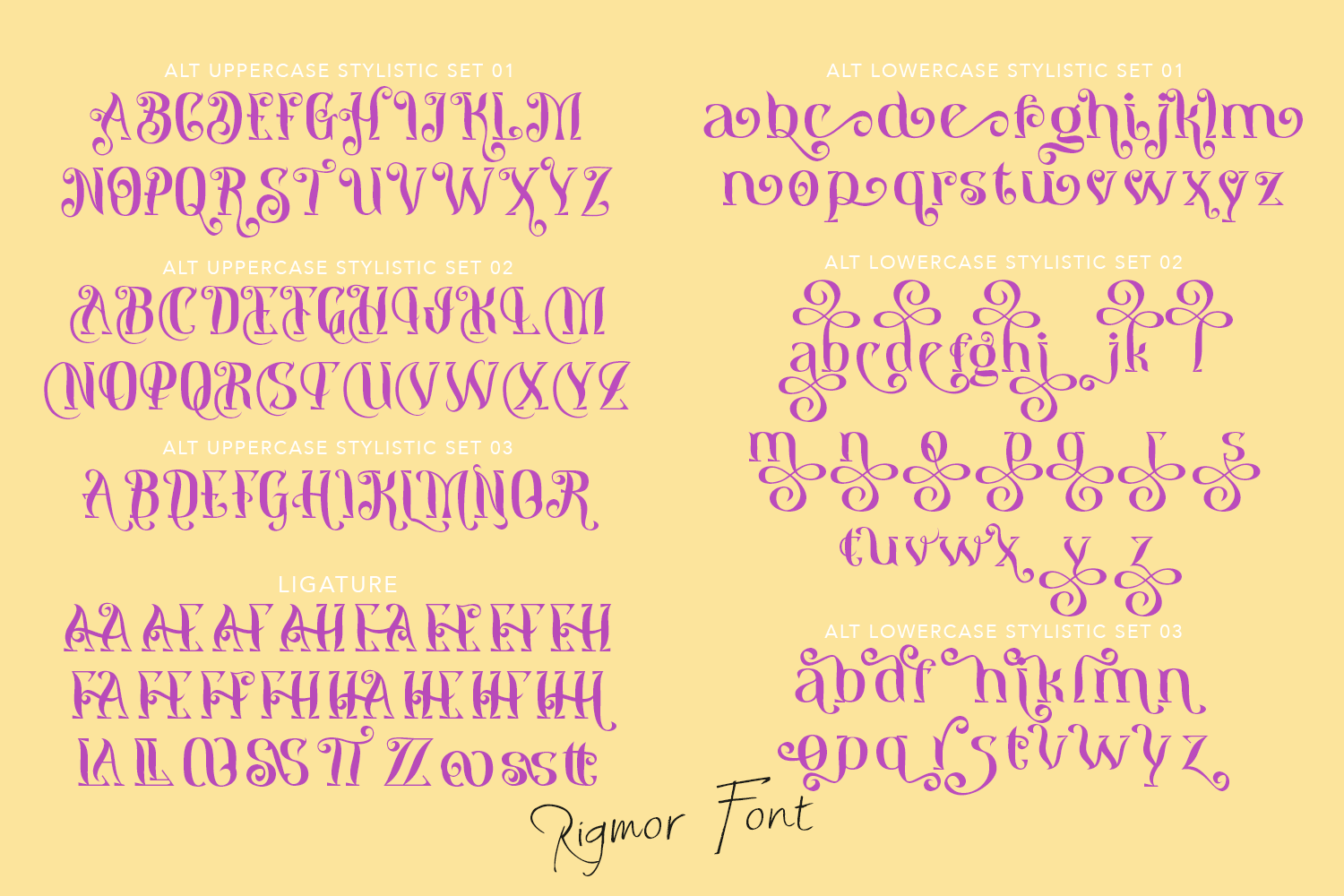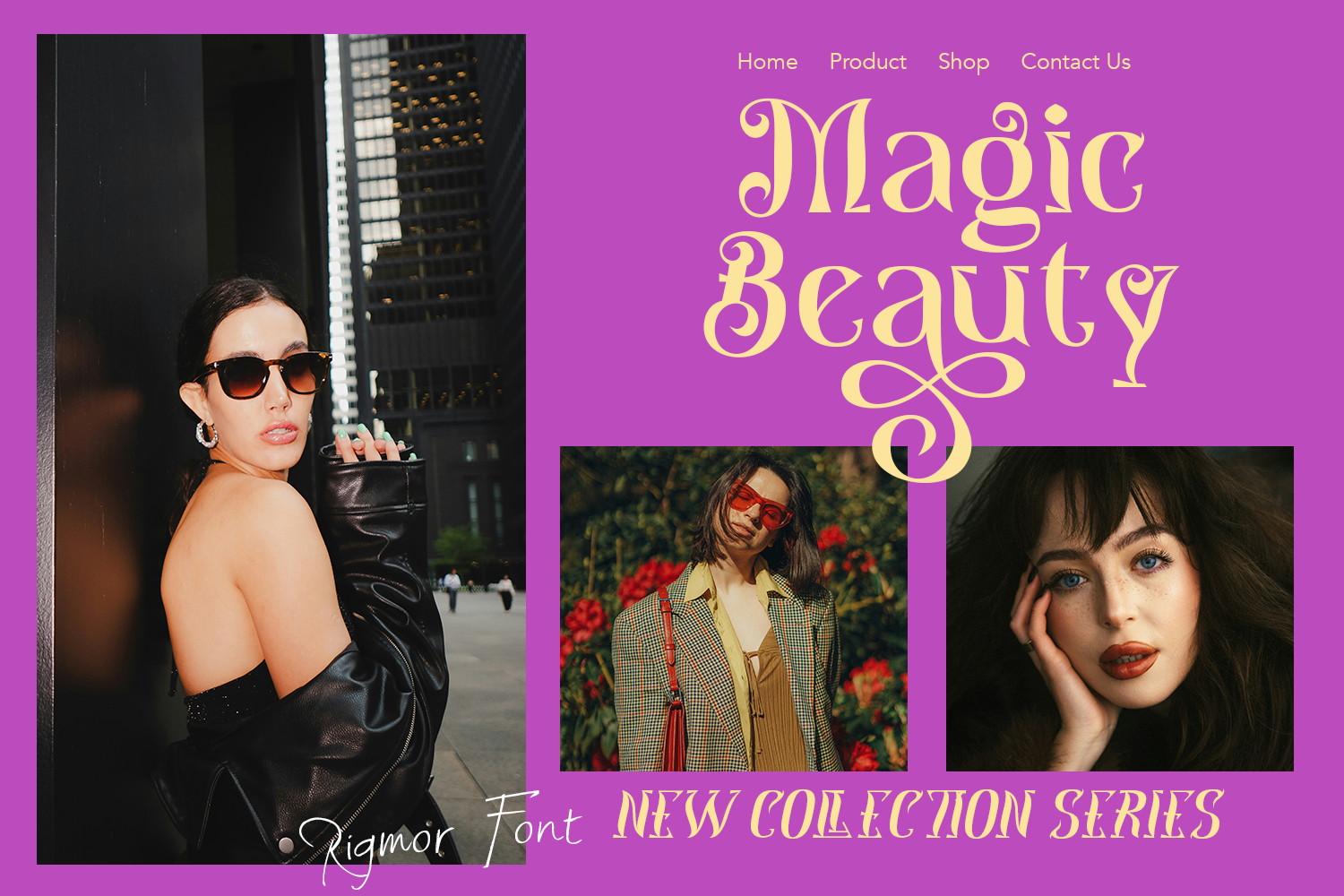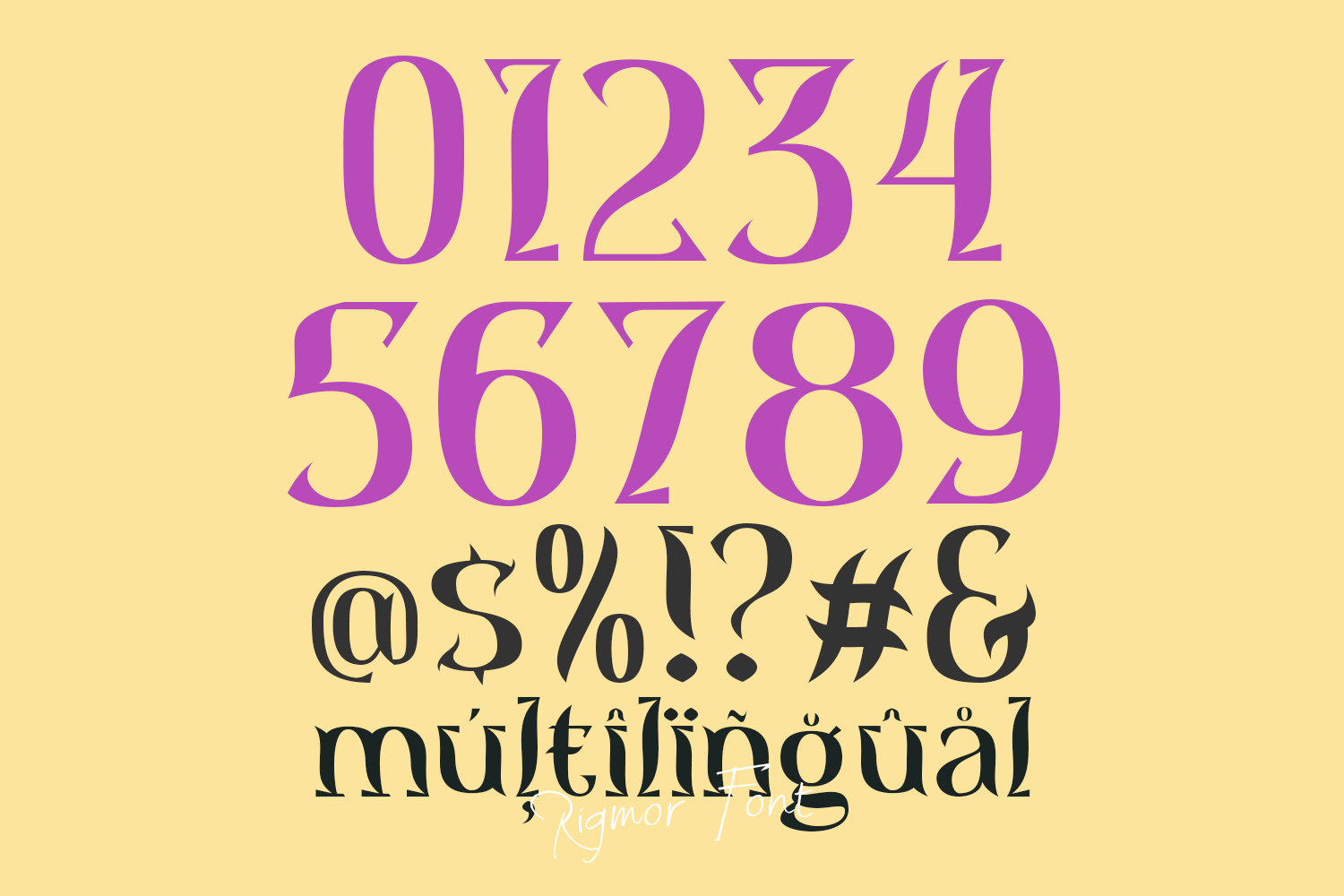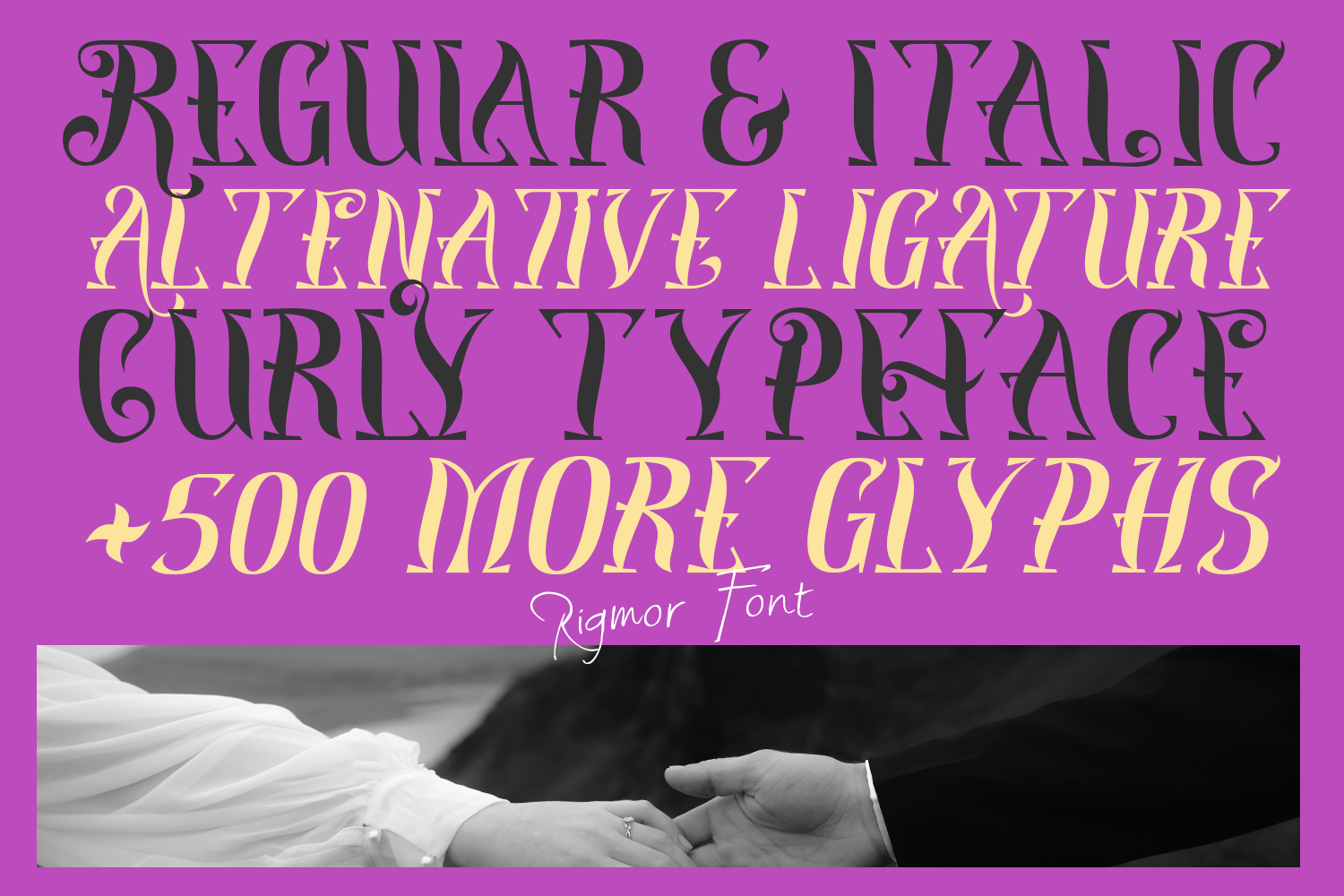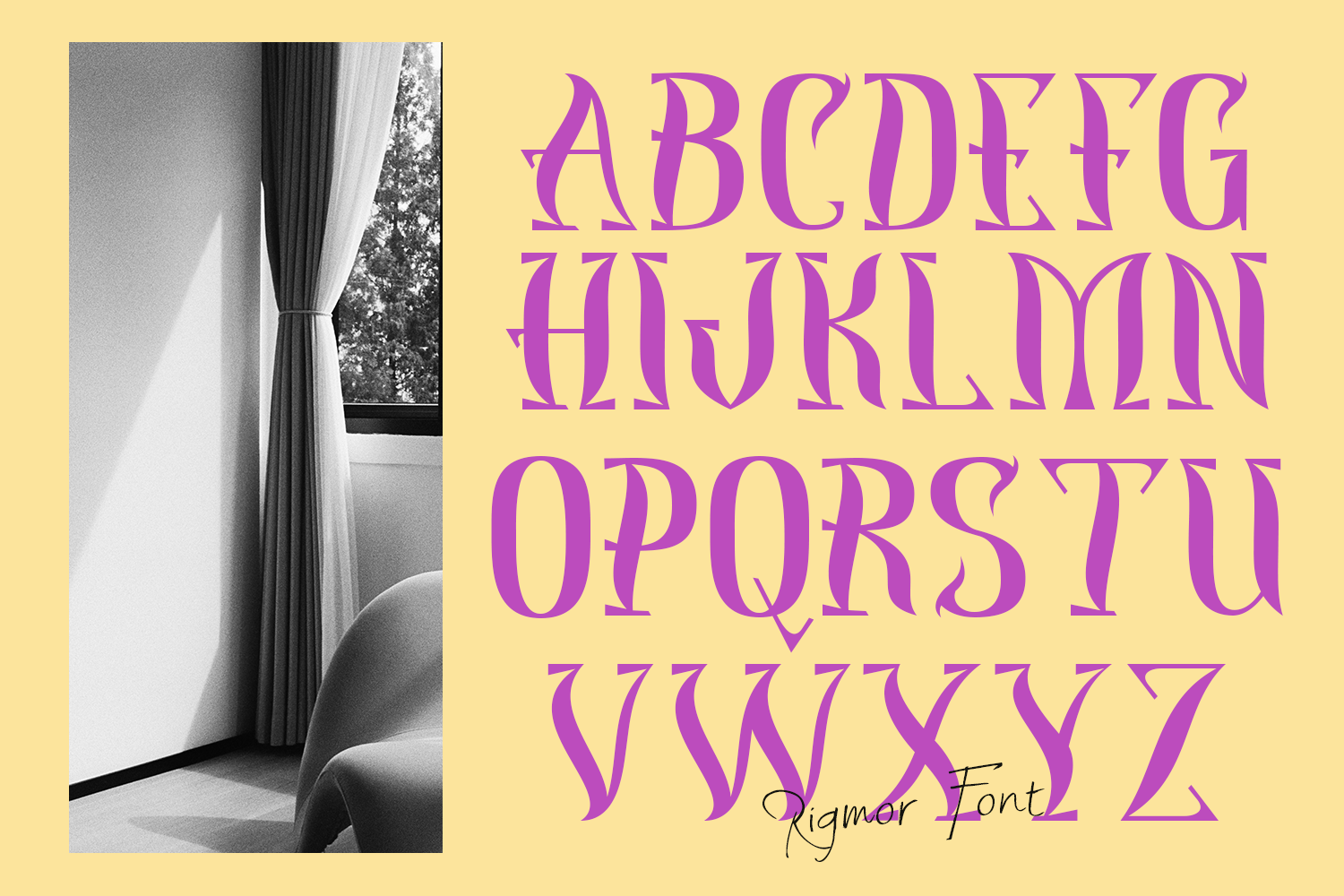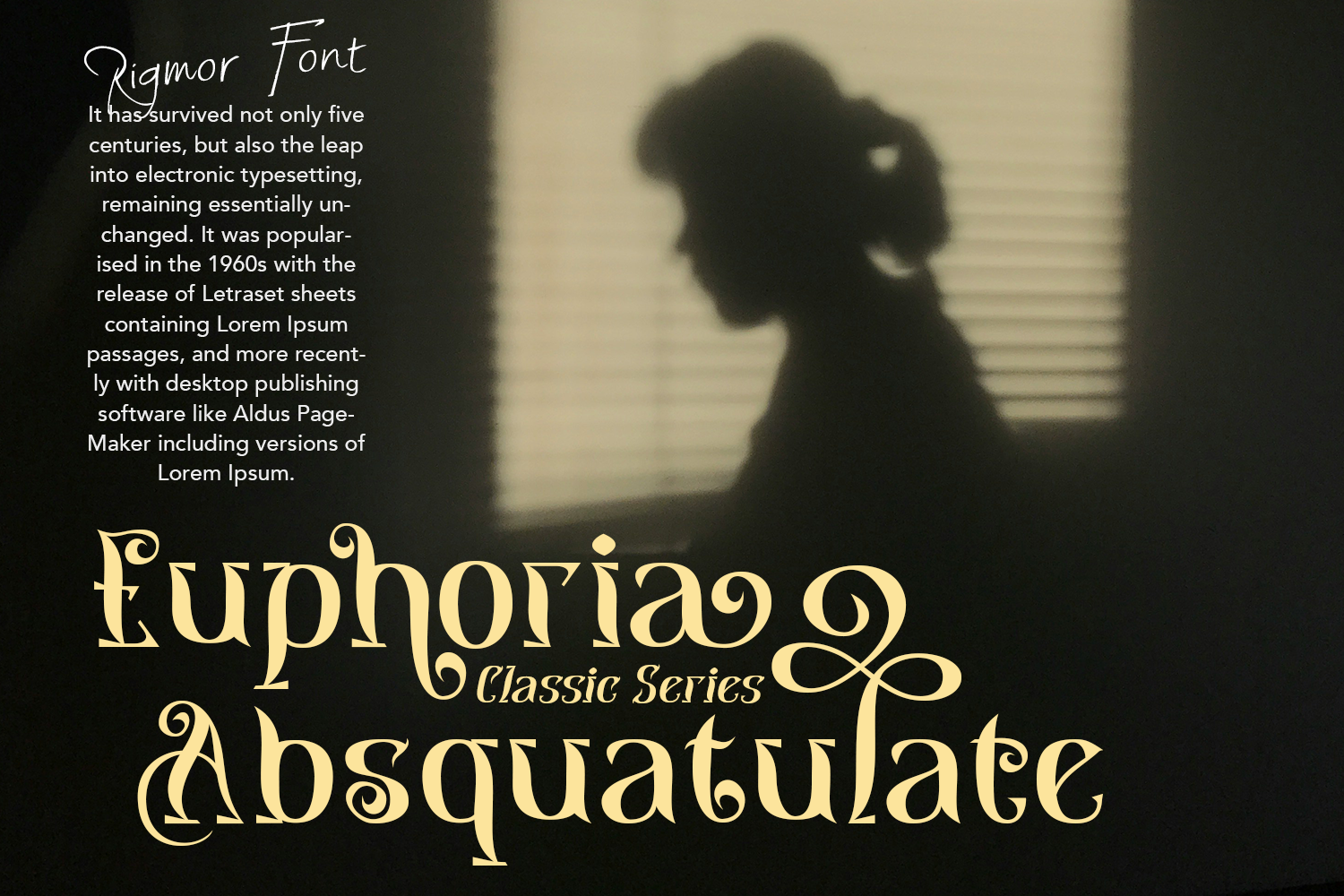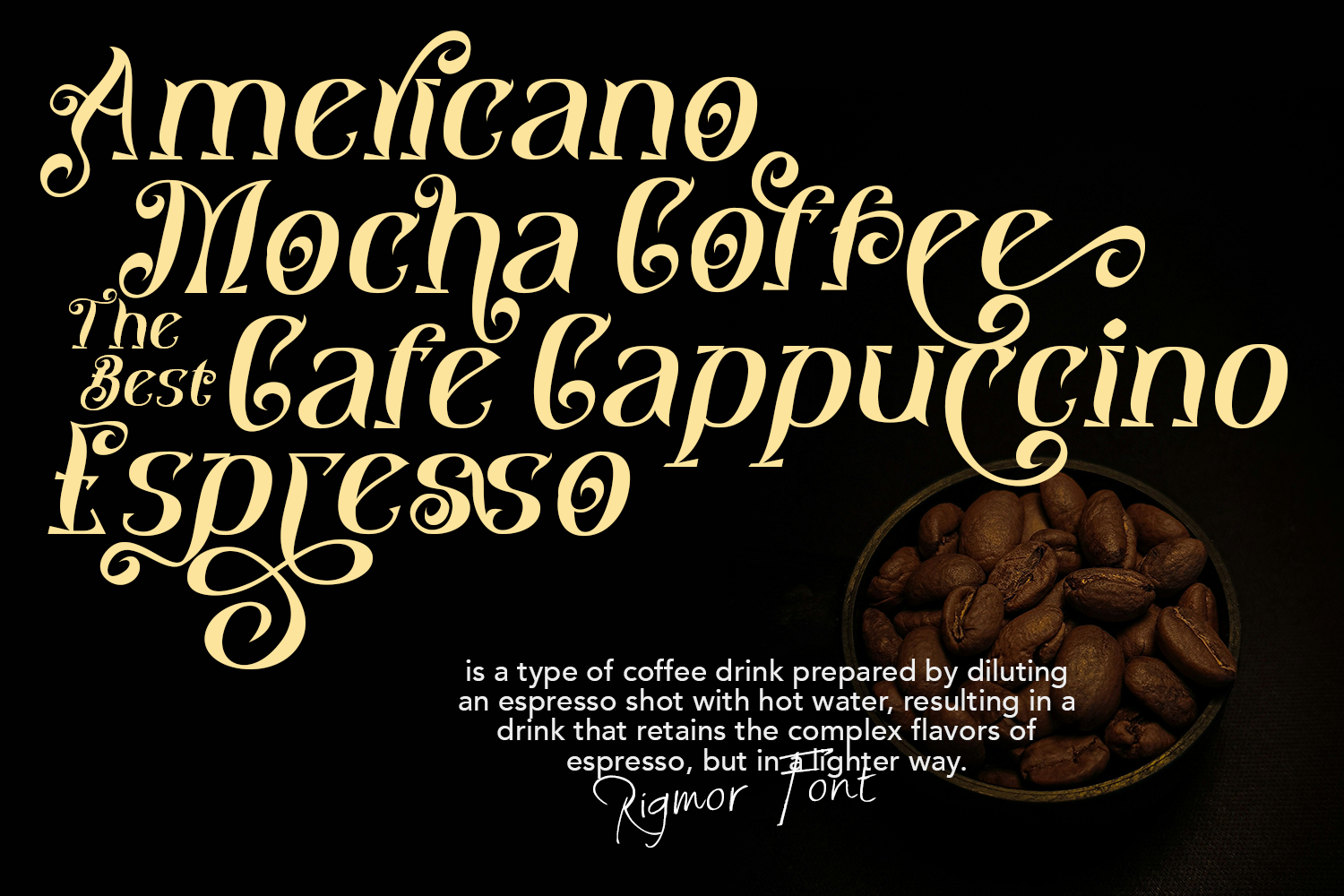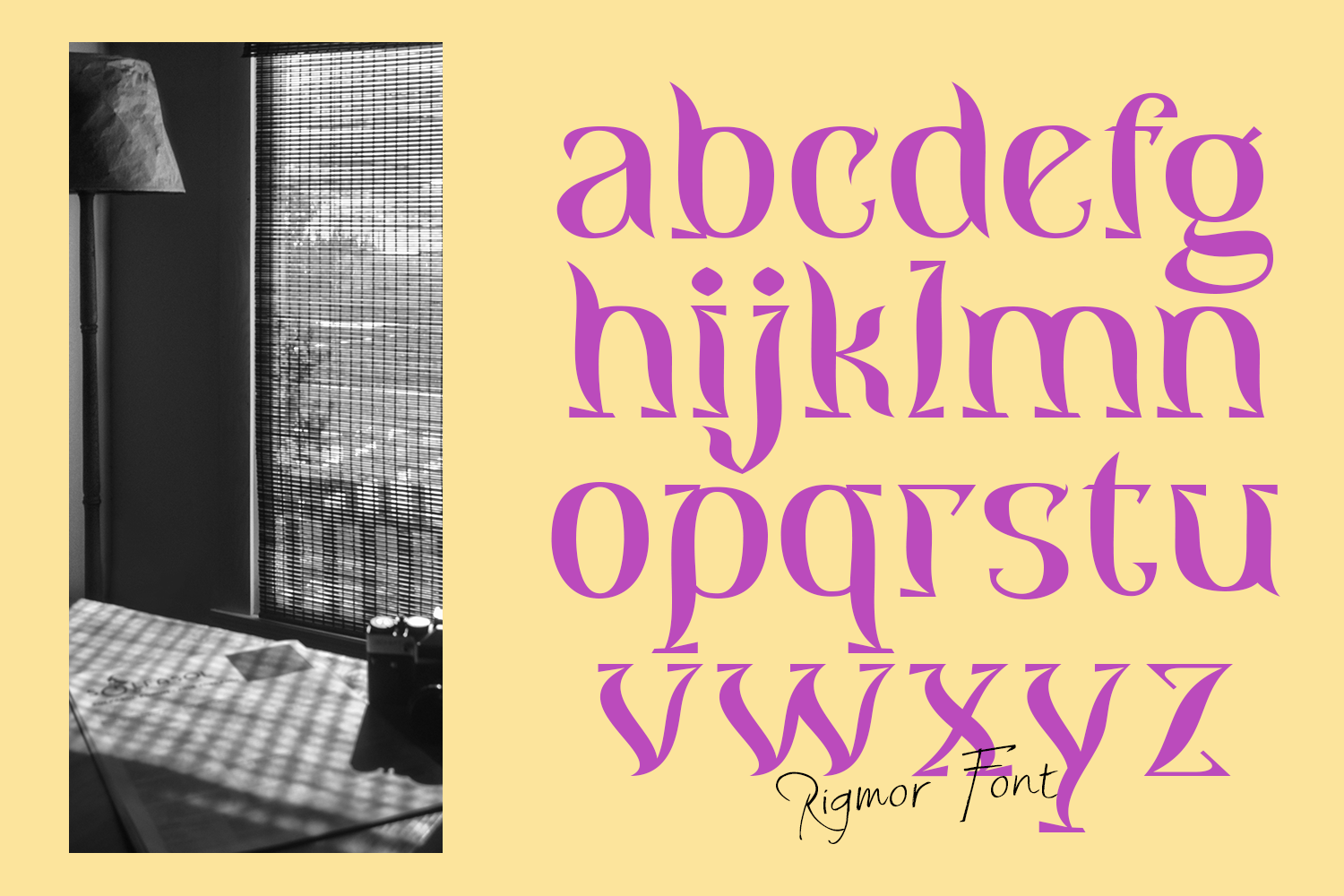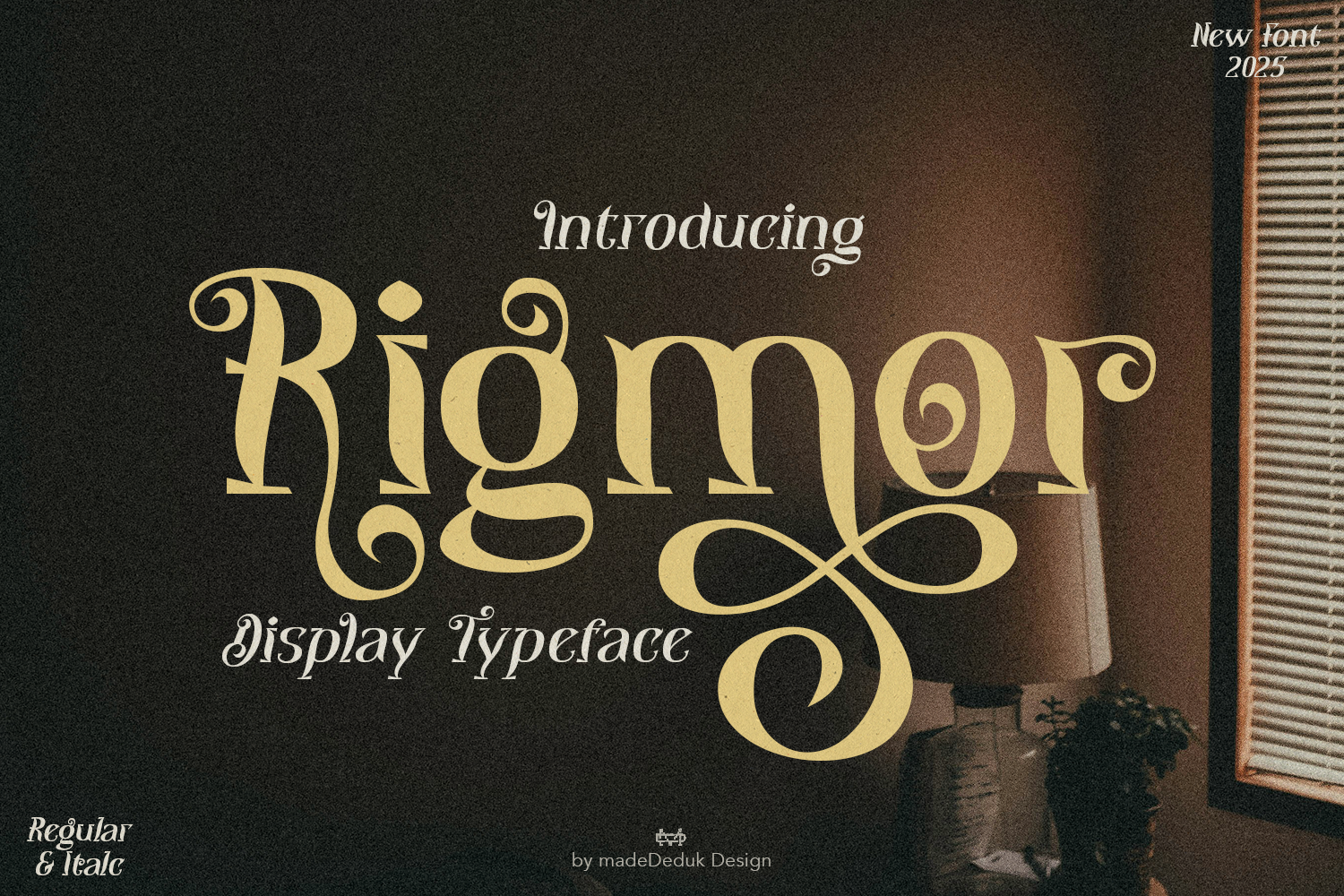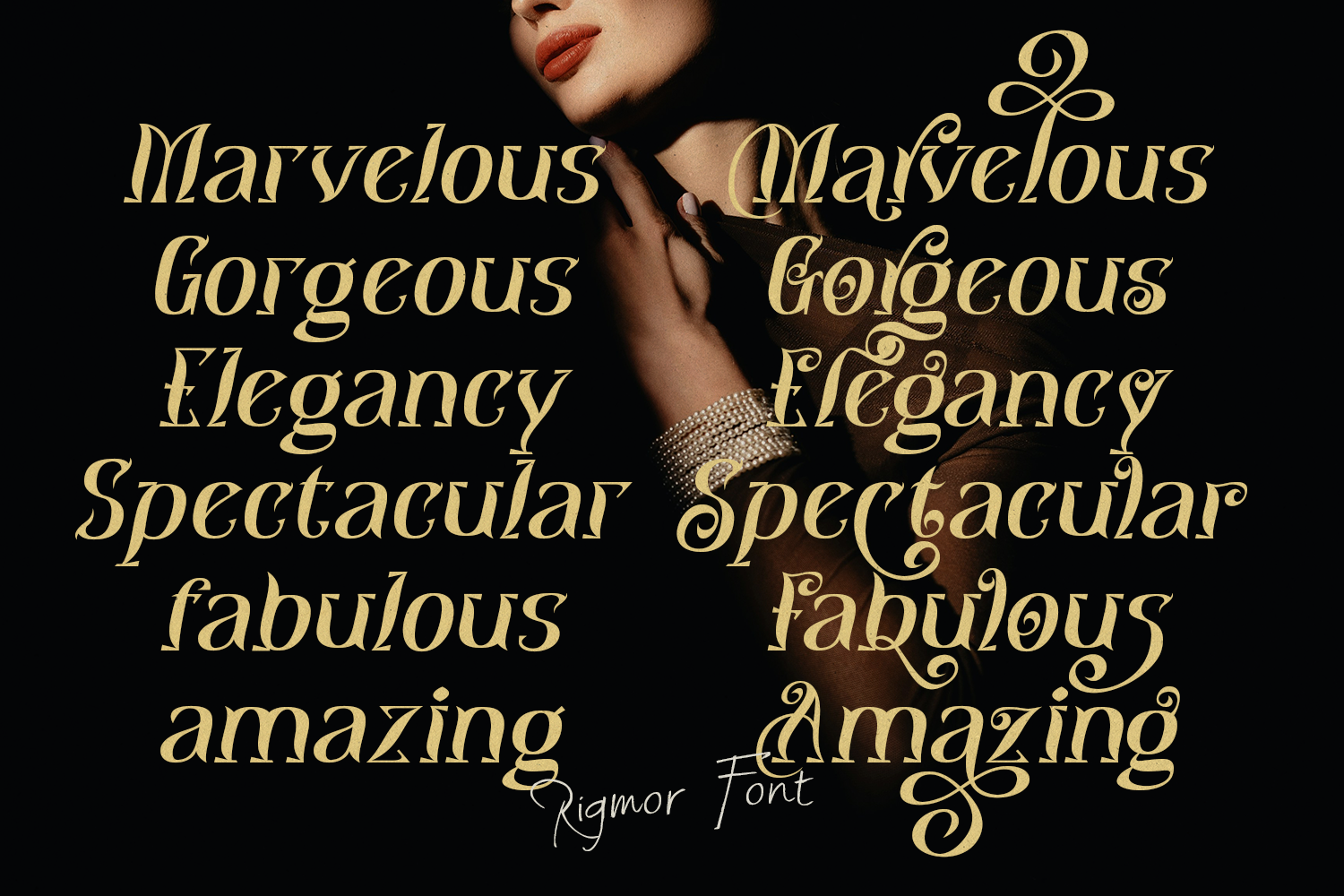
Rigmor Display Font
Rigmor is a display font curly will bring your project a strong and powerful touch. Browse through all the previews and get as inspired as I was when creating this font. This font is very perfect for many display purposes in your product design if you want to a modern vintage style look. Such as book covers, product labels, logos badges, drink bottles, tattoo shop, coffee shops, and many more.
Feature
- Number & Symbol
- International Glyphs
- Alternative
- Ligatures